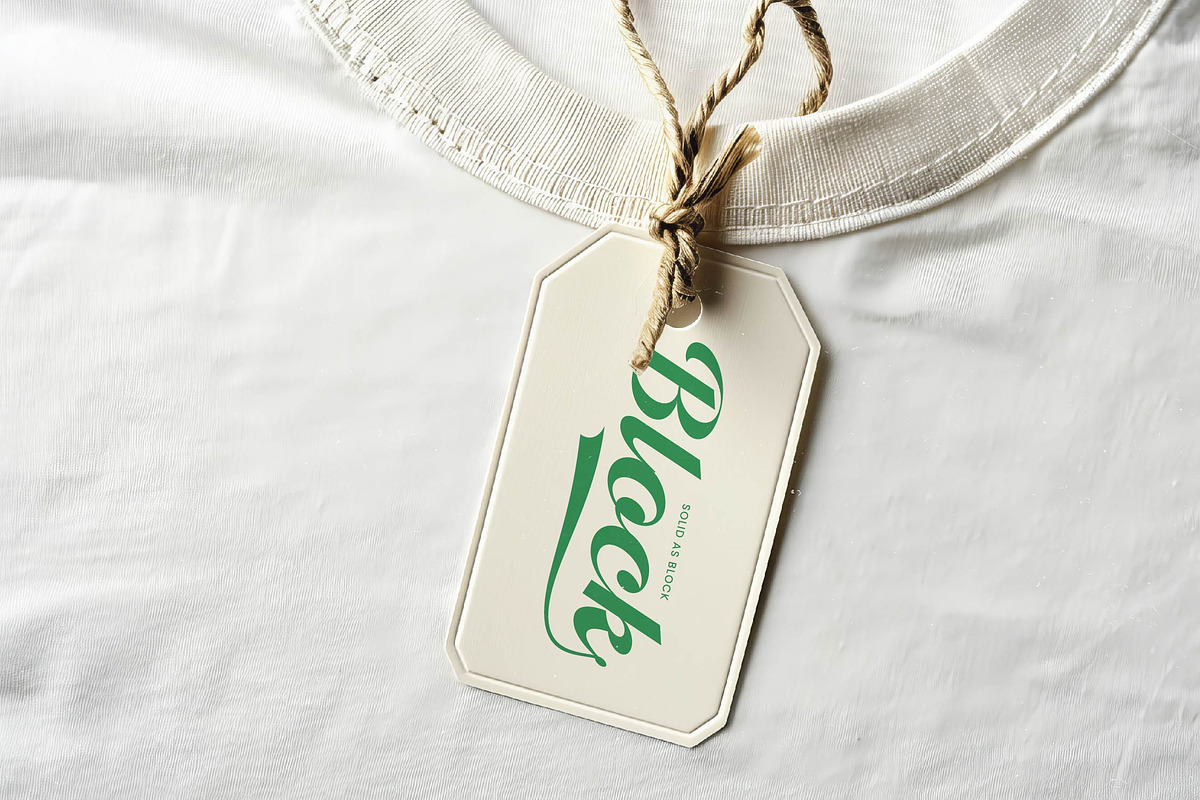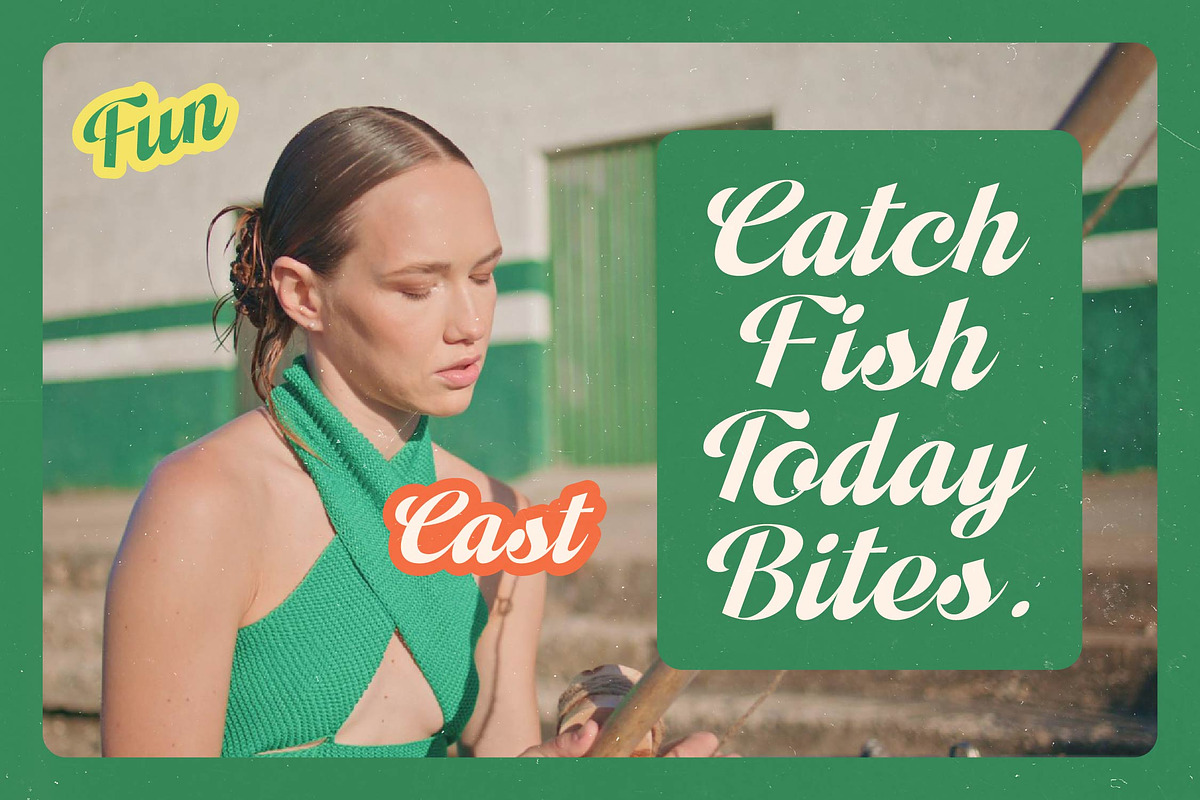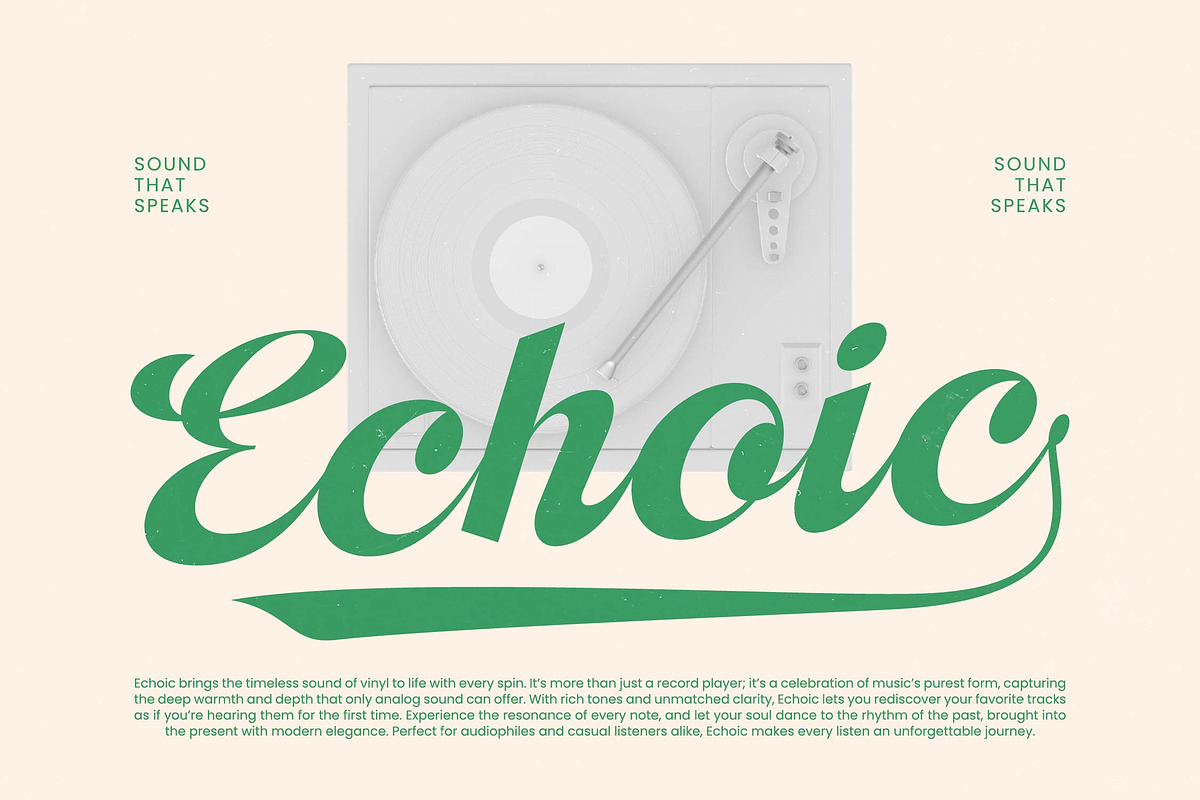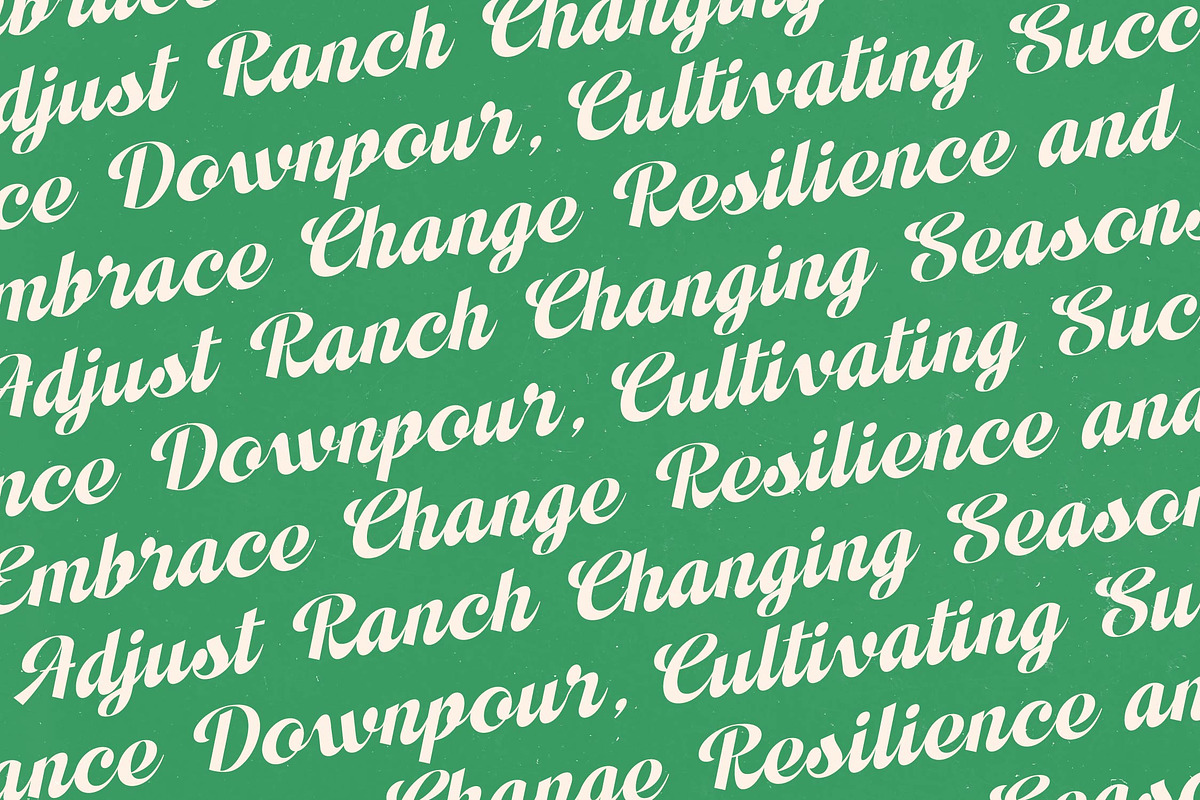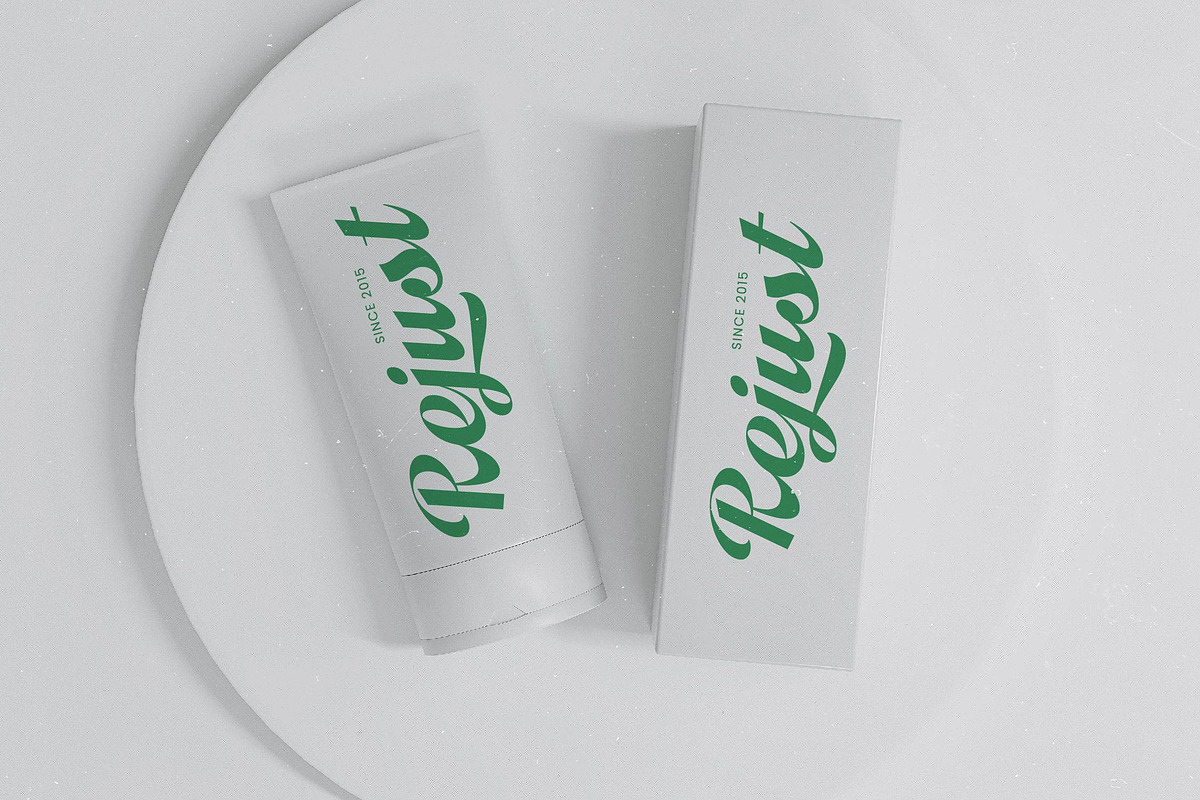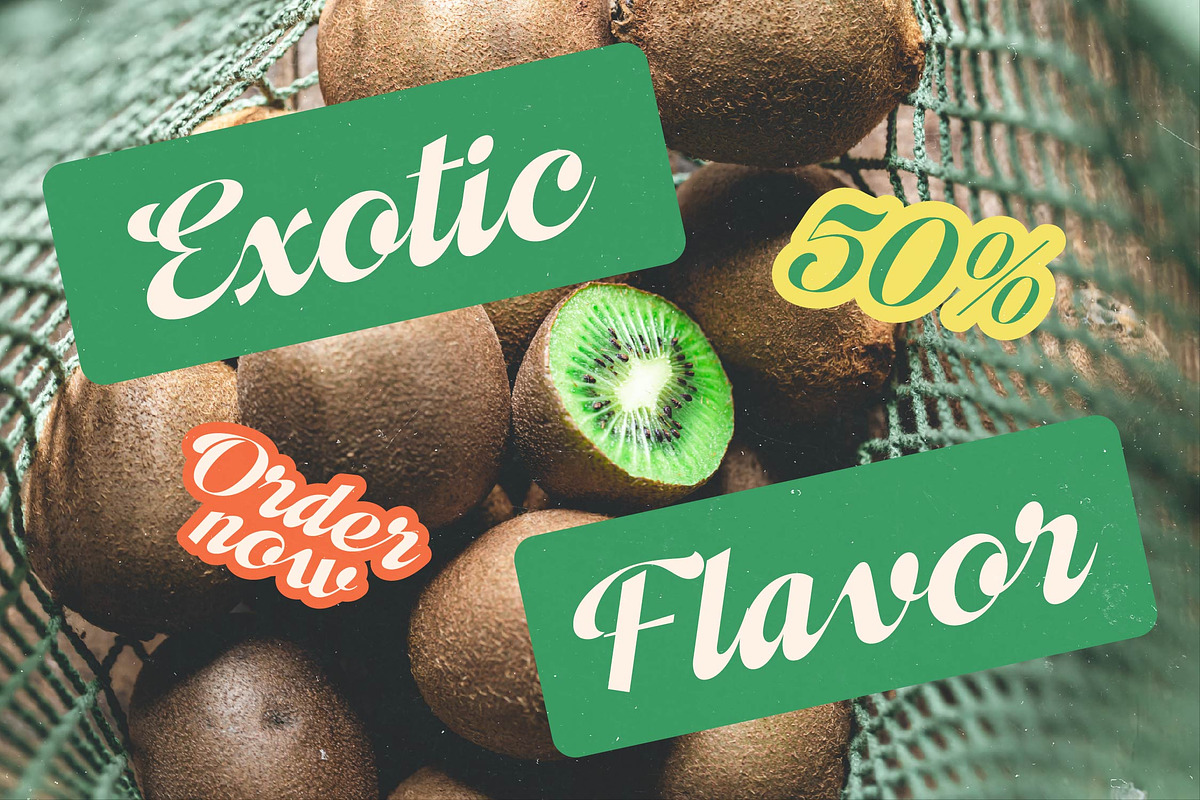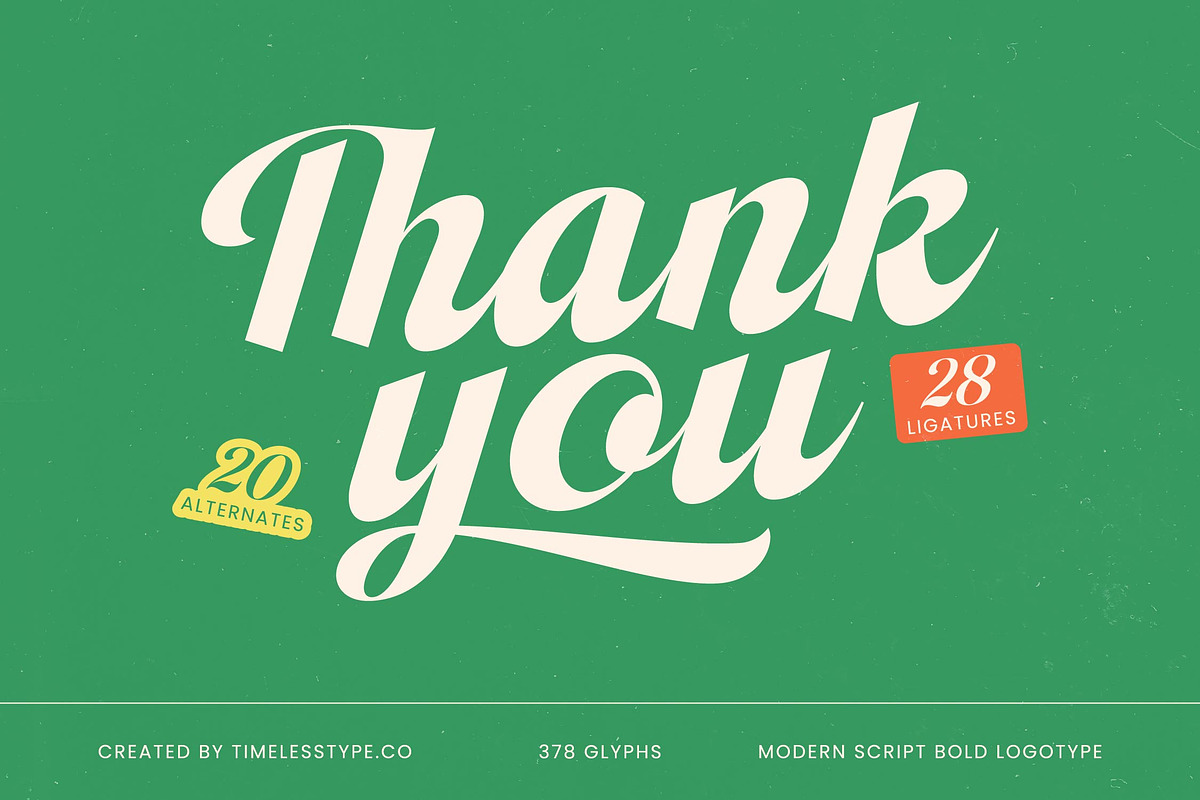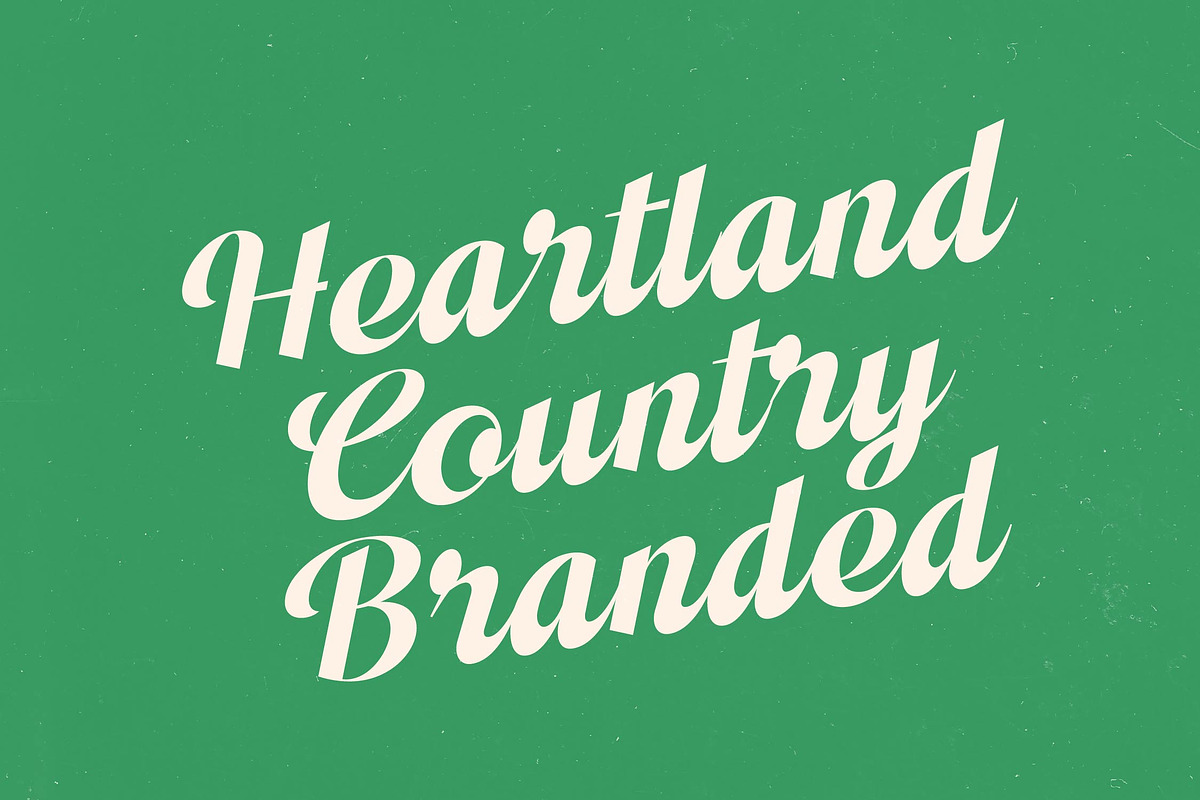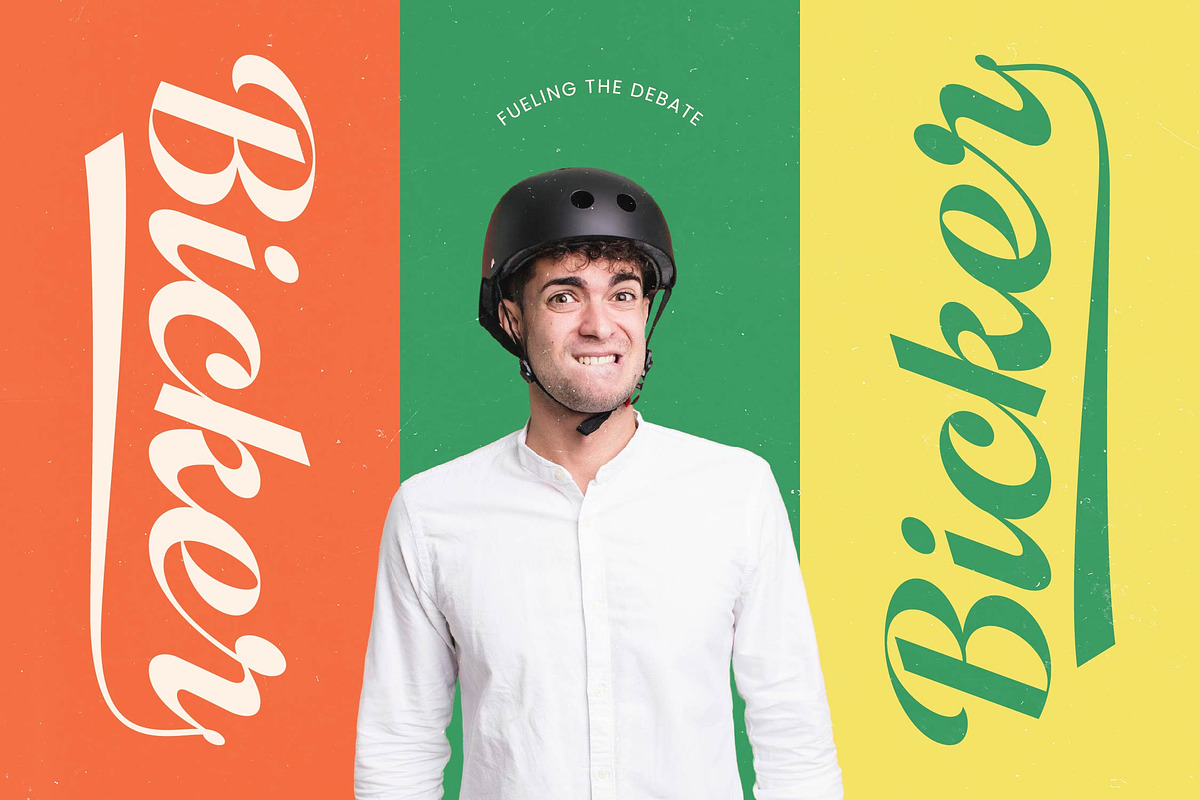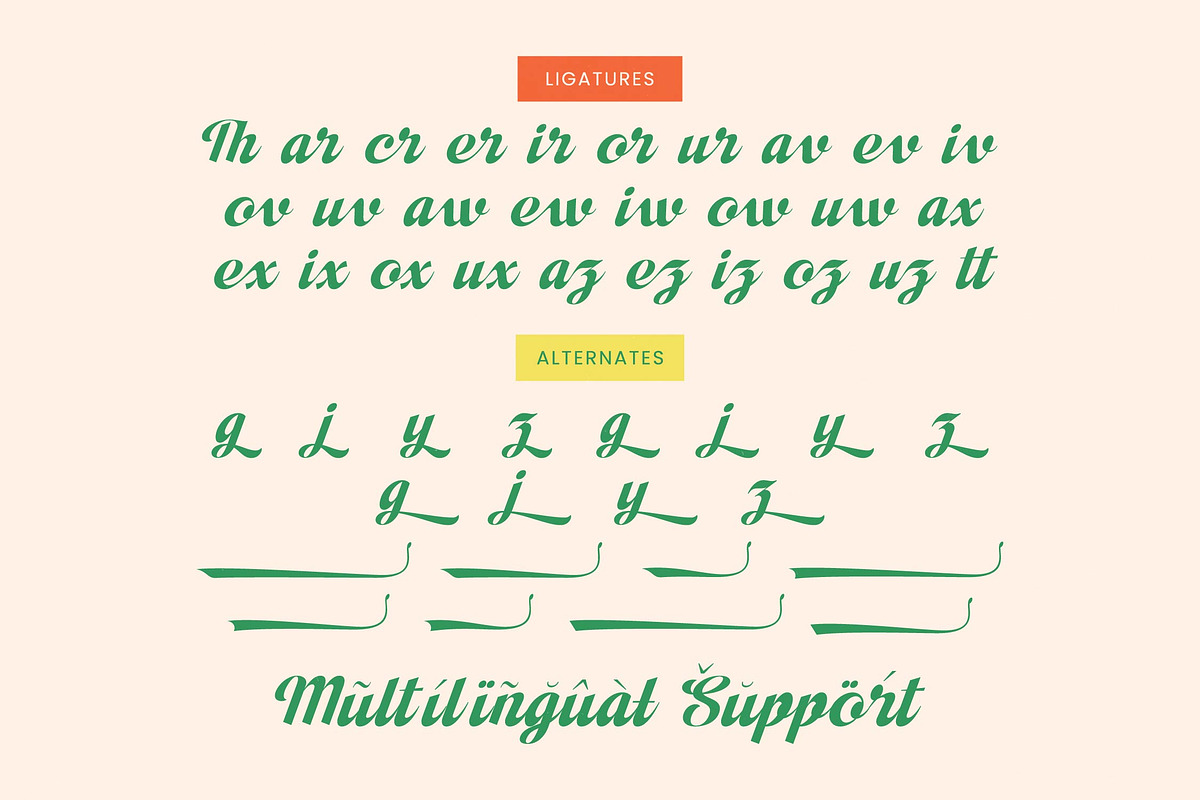
Adjust Ranch Retro Script Logo
Adjust Ranch is a masterclass in nostalgic energy, capturing the fluid motion and confident weight of mid-century sign painting with a sharp, contemporary edge. This typeface breathes life into every curve, offering a timeless aesthetic that feels both freshly minted and deeply rooted in design history.
Inspired by the golden era of American advertising and casual brush lettering, this font evokes the atmosphere of roadside diners and classic sports apparel. Its heavy-weighted strokes and dynamic slants create an unmistakable presence that commands attention while maintaining a friendly, approachable vibe.
Delivering an incredible modern serif display quality through its thick strokes, this typeface is the ultimate tool for those seeking luxury typography that blends script fluidness with high-contrast serif impact. As a premier editorial font, it ensures a massive branding impact for any project requiring a distinct, hand-crafted personality.
Riding the wave of the modern serif trend, this script bridges the gap between classic calligraphy and the editorial display fonts favored by today's leading designers. It represents the pinnacle of character-driven typography, making it a versatile choice for creators who need their work to stand out in a saturated digital landscape.
This versatile powerhouse is perfectly suited for high-end logo design and comprehensive branding systems that demand a unique voice. From sophisticated editorial layouts and vintage-inspired packaging to whimsical wedding invitations and bold fashion lookbooks, it adapts seamlessly to diverse creative environments.
This professional package is loaded with 378 glyphs, including a generous set of ligatures and alternates that allow for custom-tailored flourishes. With its extended multilingual support and wide range of international characters, including unique swashes, it provides everything needed for a truly global design reach.
- Ligature 28 Alternate 20